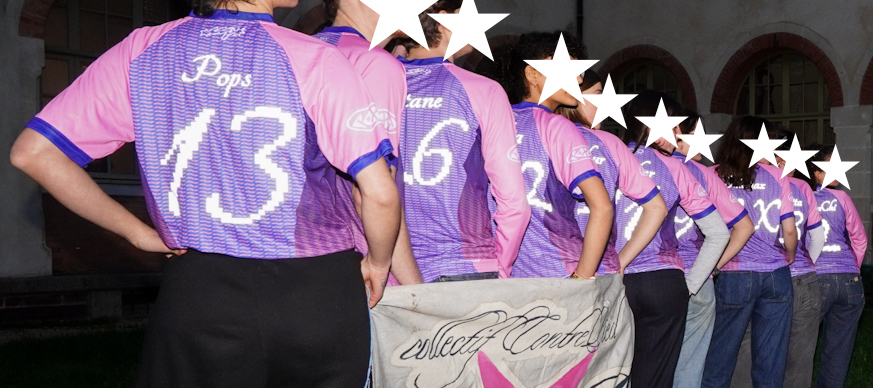
For inspiration, I chose the finest example of calligraphic type: Zapfino. This is an adapted, remodelled, and reverse engineered version in pixels. Work in progress.
Wow. Very beautiful glyphs. The variation of stroke thickness is inspirational to see.
Impressive how you craft these elegant and delicate shapes using only the bold pixel as a building block!
I think you are missing a brick on #...
@Brynda: Thank you for your comments. This is still a work in progress, and far from complete. I plan to rework the B,D,Y, maybe the g, replace all the numbers with oldstyle figures, and add more special characters, punctuation marks, etc. Perhaps, for an OpenType version I might add alternate glyphs as well. I enabled cloning so anyone interested could make his/her own version. The #: the "missing" pixel is intentional. As it's a calligraphic font there ought to be some imperfections.
Wow, the sample really shows how well this works even in longer texts. Looking at the screen from a little distance, the pixels disappear and all I see is a beautifully refined and very legible calligraphic script. All men are created equal.
Stellar. Swashtastic. Organic. Natural. No artificial ingredients. Methinks perhaps that the 'H' is a tad bit wide, and mayhaps the 'N' to a lesser degree.
wow very impressive at such a small grid, bravo 10
Maybe you can add an alternate the very long, fancy and famous lowercase 'f' which made the signature of this font ;)
Beautiful 'derived' work, with perhaps too many jaggies for my trained eyes (advanced pixel art in mind). Looking forward to what make the original type famous (ornaments, variants - without begging). Any clue about your font name (Myrtille)? Have a nice week-end!
Ok, this is so amazing. I literally have no idea how you even space & kern fonts like this.
We're a french student football team (Collectif Contre Pied) and we chose Myrtille Pixel for our shirts ! So happy to see it on everybody's back :)